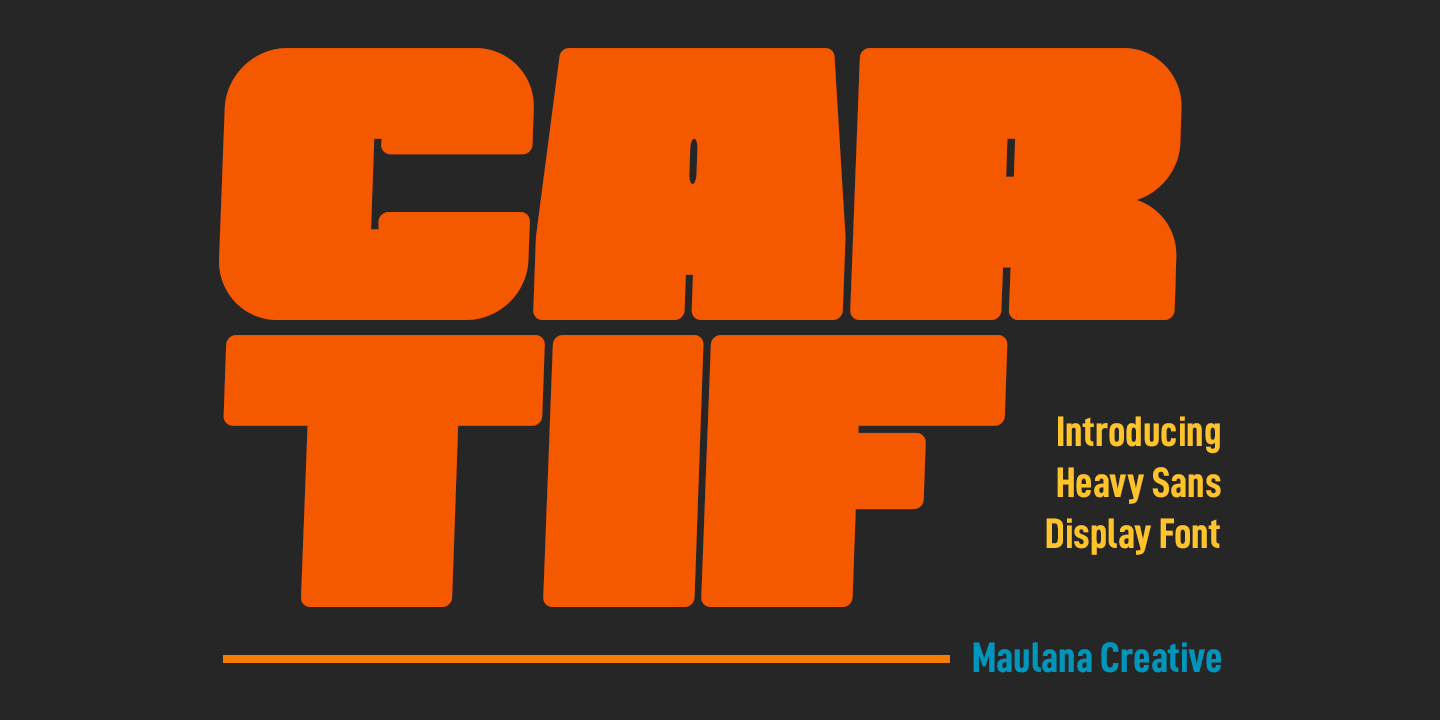
MC Cartif Font Font is perfect for rap artist branding, hip-hop album covers, urban music events, street culture campaigns, freestyle battle graphics, underground music venues, hip-hop fashion labels, beatboxing competitions, rap video credits, and rhythmic applications that celebrate the authentic artistry and lyrical mastery of hip-hop culture.
What makes MC Cartif Font Font truly exciting is its authentic capture of hip-hop artistry and lyrical sophistication that embodies the creative flow and street credibility of master MC performance and urban musical excellence. This exceptional typeface combines rhythmic energy with artistic precision, featuring bold letterforms and flow-inspired character that convey both lyrical skill and street authenticity. The font's MC-focused personality and hip-hop heritage make it perfect for artists seeking to communicate lyrical mastery, street credibility, and the transformative power of authentic hip-hop expression that connects with audiences through genuine artistic talent and cultural authenticity.
The MC Cartif Font Font family includes multiple weights and styles: Light, Regular, Bold, Flow, and Freestyle variations designed for maximum hip-hop impact. Each family member maintains the distinctive rhythmic character while offering flexibility for diverse urban applications and hip-hop branding systems. The comprehensive character set supports lyrical typography needs and street design elements, making it suitable for international hip-hop communications.